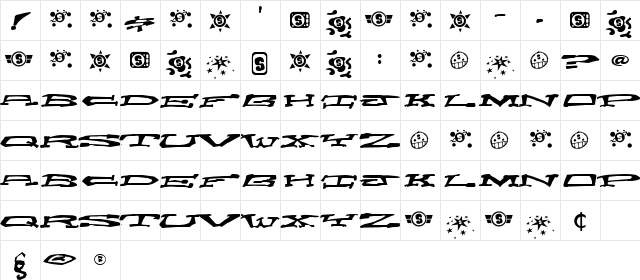
Chain Crank Regular Font Preview
Chain Crank Regular
Design Context for Chain Crank Typeface
Chain Crank is a composed and adaptable typeface that performs quietly and consistently across a wide range of design contexts.